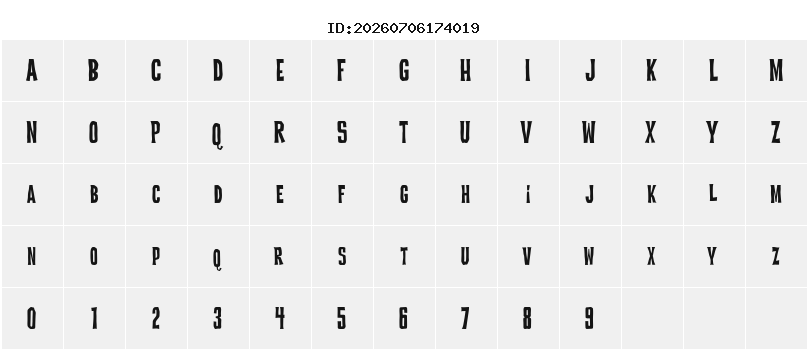
Devil Dog BTN Cond Preview
• Font Name: Devil Dog BTN Cond
• Full Font Name: Devil Dog BTN Cond
About Devil Dog BTN Cond.ttf
Devil Dog BTN Cond.ttf is a modern, elegant sans-serif font designed for ultimate readability and visual harmony. Perfect for branding, headlines, web design, and print materials.